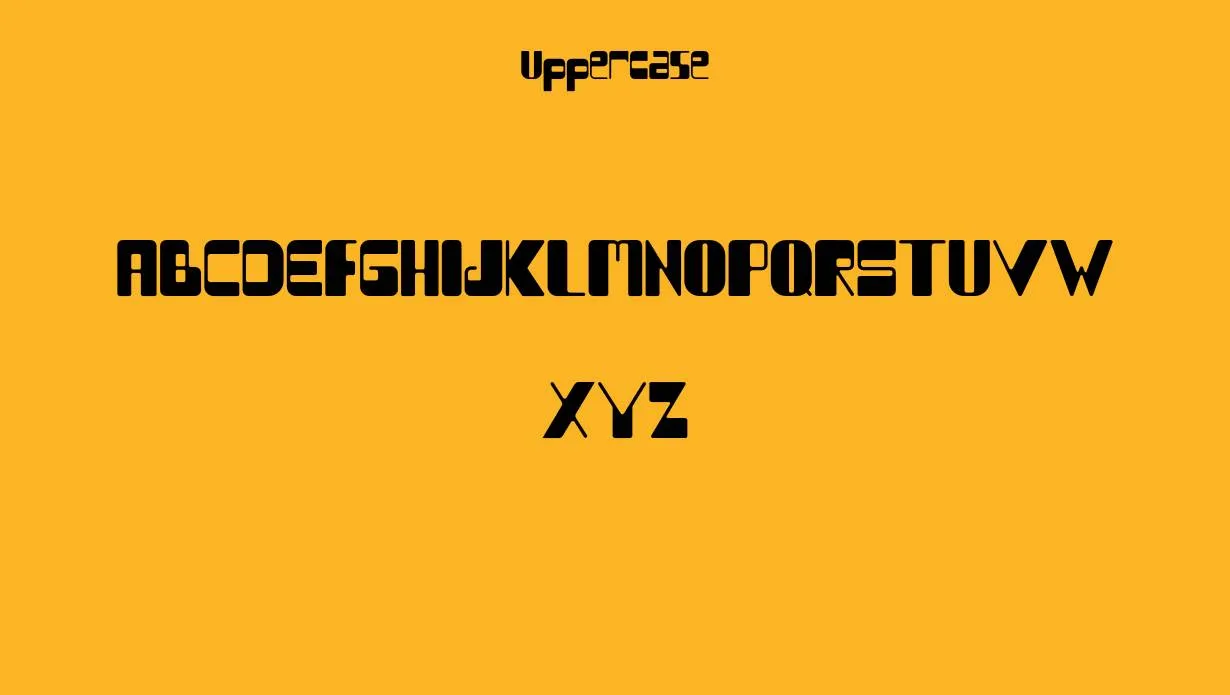
Introducing Chubby Chicks Font comes in the funky and playful Display font category that was created by Putra Novembria Candra Kusuma and released by Putracetol. It has its own cute, quirky, and bold appearance that makes it perfect for children’s projects. It comes with TTF and OTF formats.
This typeface has an online tool that makes it easy to use without downloading it onto your PC, this tool is known as the Chubby Chicky Font Generator tool. Moreover, it has cute and funny characters that can add a cool, stylish, and childish touch to any content.